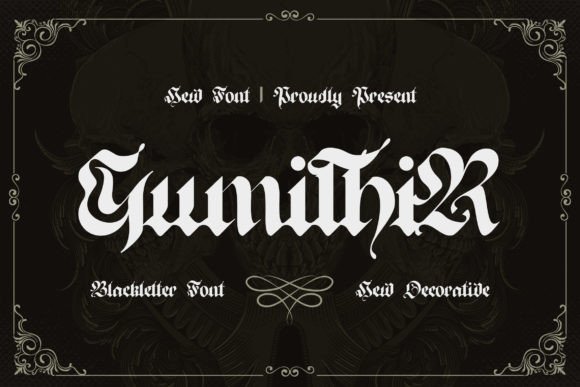
Behold, Gumithir, the majestic blackletter font that radiates boldness and tradition, an artistic marvel that captivates the senses and leaves an indelible mark on your designs. A creation of TypeFactory, Gumithir is more than just a font; it's an artistic expression that exudes strength and character, the perfect companion for those who crave uniqueness and distinction in their designs.
Immerse yourself in the world of Gumithir and experience the allure of its distinctive and ornate letterforms, crafted with the utmost precision to command attention and make a lasting impression. Each stroke, each curve, each intricate detail is a testament to the artistry and dedication poured into this typographic masterpiece. Unleash your creativity and let Gumithir transform your designs into captivating works of art.
With its bold and dramatic presence, Gumithir is the ultimate choice for headlines, titles, and any text that demands attention. Its commanding presence cuts through the clutter, ensuring your message is seen and remembered. Elevate your logos, branding, and design materials to new heights with the timeless elegance of Gumithir, leaving a lasting impression that resonates with your audience.
Gumithir's versatility extends beyond the digital realm; it's a font that transcends boundaries, finding its home in packaging design, book covers, and countless other creative projects. Wherever a touch of tradition and sophistication is desired, Gumithir shines as a beacon of artistic brilliance. Its ability to blend seamlessly with various design aesthetics makes it a true chameleon, adapting effortlessly to your creative vision.
Embrace the beauty of Gumithir, a font that embodies the essence of boldness and tradition. Let your designs speak volumes with its captivating letterforms, leaving an imprint of elegance and distinction. Download Gumithir today and embark on a journey of creativity, where your designs take center stage and leave your audience in awe.